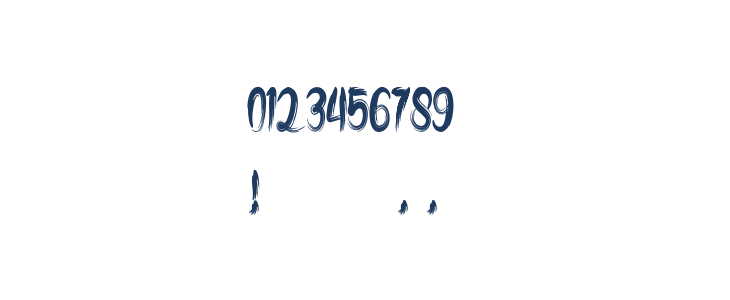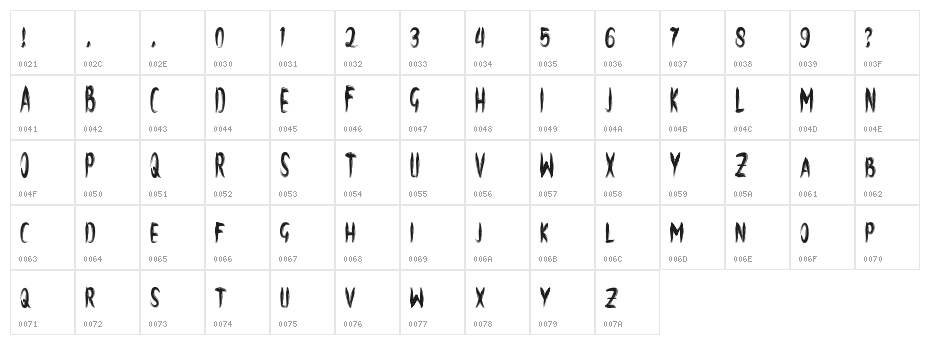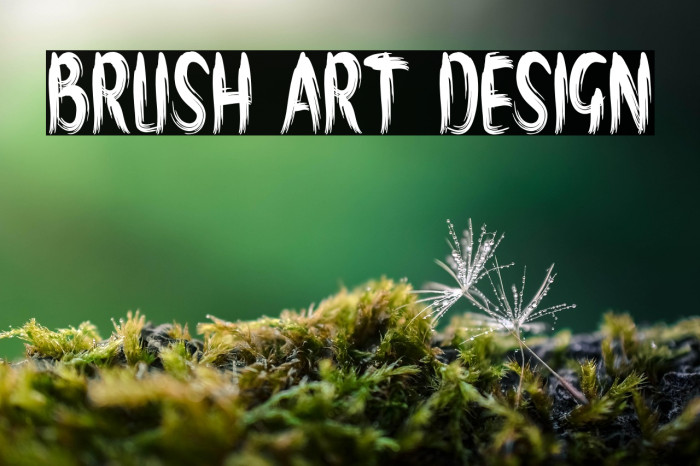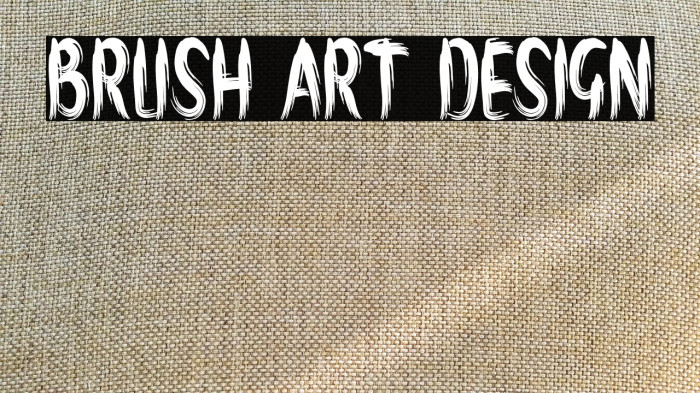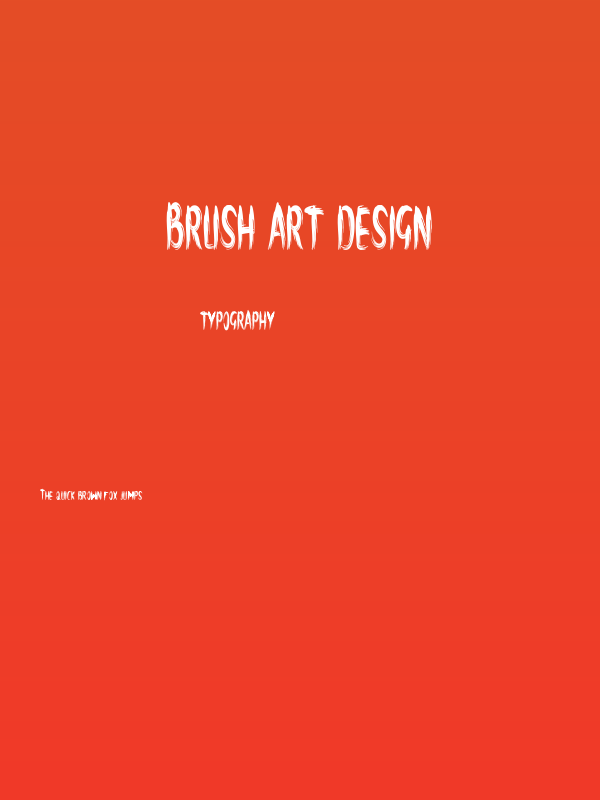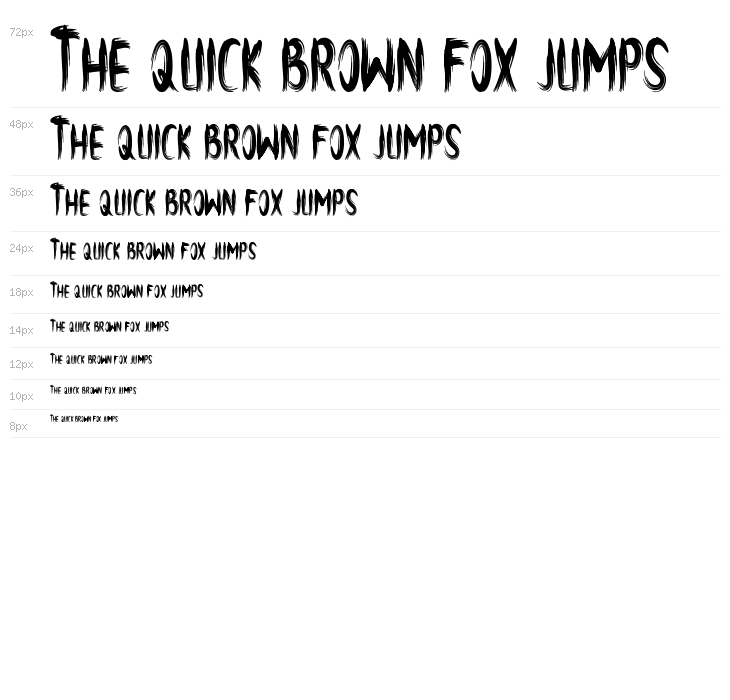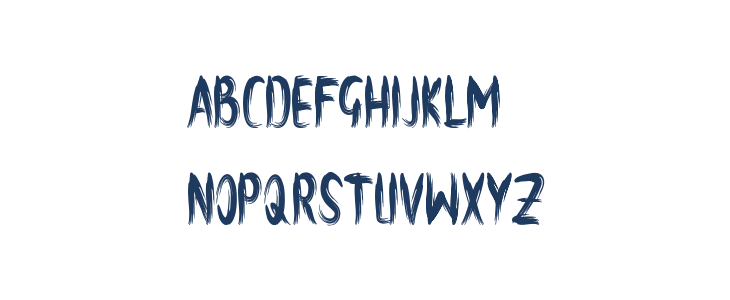
brush art design Font
brush art design Description
This font exudes a dynamic and artistic flair, characterized by its brushstroke-inspired design. Each letter appears as if painted with a bold, sweeping brush, giving it a lively and textured appearance. The strokes vary in thickness, adding a sense of movement and energy. The uppercase and lowercase letters maintain a consistent style, with slightly exaggerated curves and angles that enhance its artistic nature. The numbers and special characters follow the same brushstroke theme, ensuring a cohesive look across all elements. This font is perfect for projects that require a creative and expressive touch.
| Overall Style | Artistic, Expressive, Dynamic |
| Use Case | Logos, Posters, Creative Headlines |
| Proposed Projects | Ideal for art-related branding, creative posters, expressive invitations, and any project seeking a bold, artistic statement. |